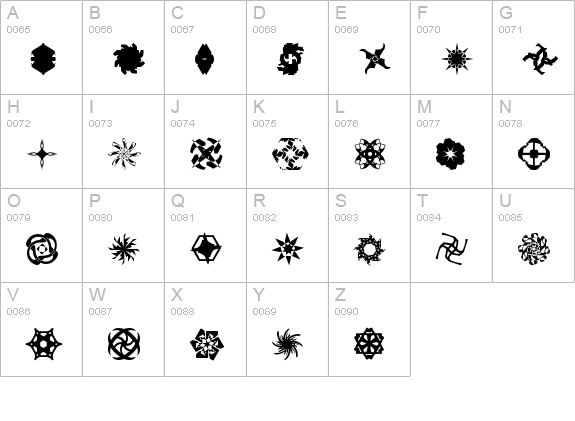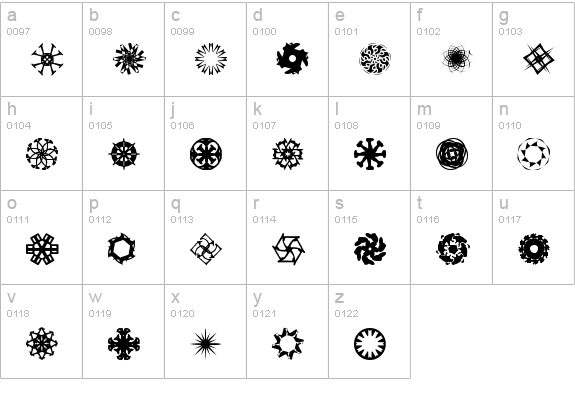
Introducing OddBats, a quirky and playful font that is sure to add a unique touch to your design projects. This font features a collection of whimsical characters with odd shapes and sizes, making it stand out from the crowd. Perfect for creating eye-catching headlines, posters, and social media graphics, OddBats will bring a fun and distinctive look to any design. What's even better is that OddBats is completely free to download at FontsMarket.com! So go ahead and grab this delightful font to add a touch of whimsy to your next project. With its charming and unconventional style, OddBats is sure to capture the attention of your audience and make your designs truly one-of-a-kind.